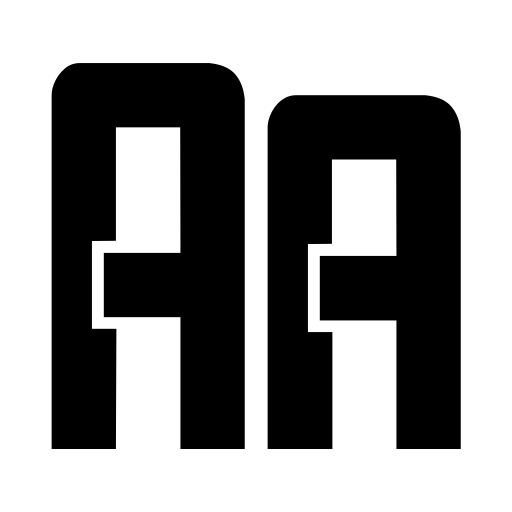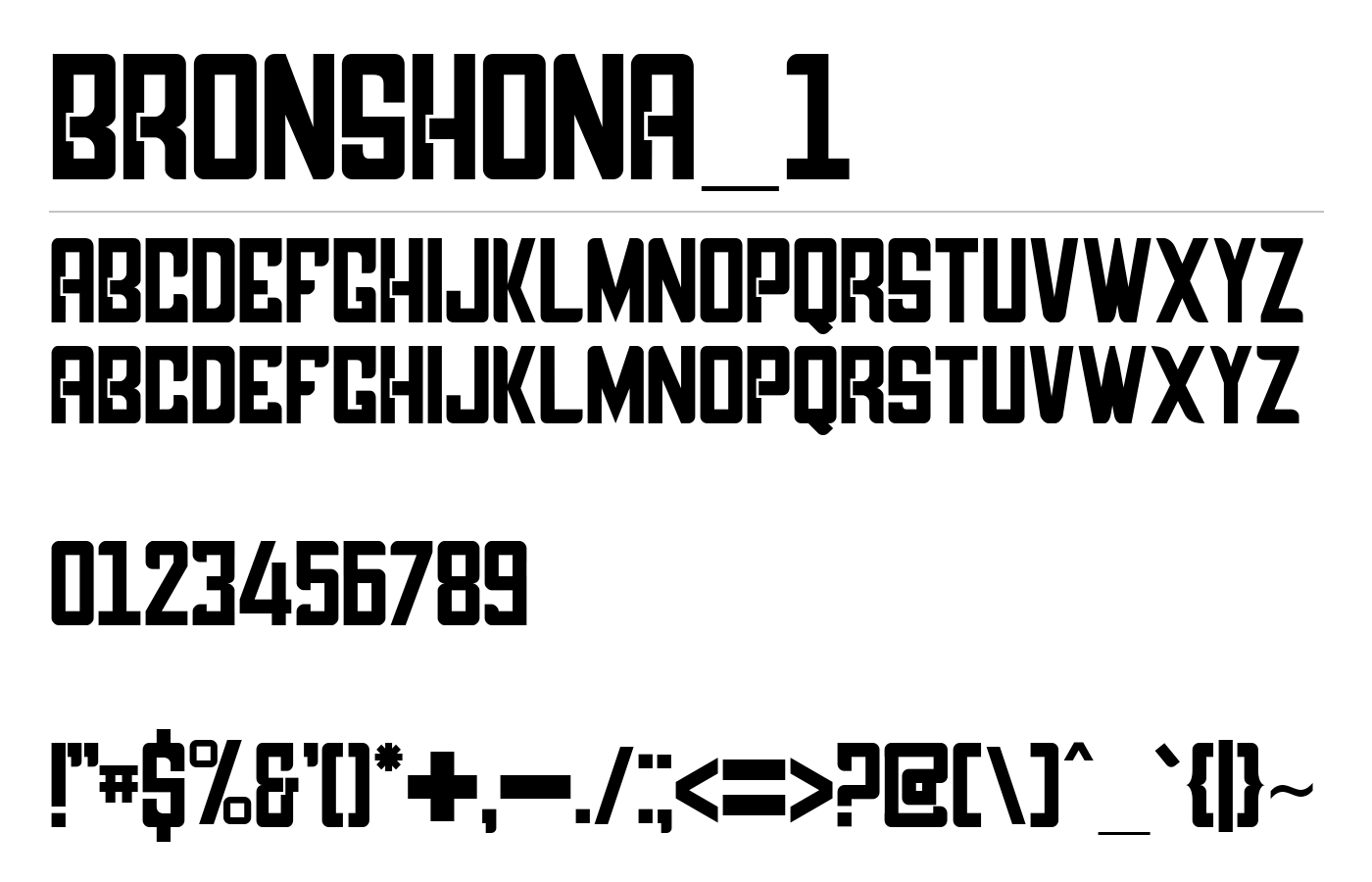
BRONSHONA_1 is a bold, condensed sans serif font with a strong geometric structure and sharp edges, giving it a modern and industrial feel. Its uppercase-only design features unique cut-out details that add character and make it stand out, ideal for eye-catching headlines, logos, and branding that aims to convey strength and innovation. This font works best in display settings where impact and readability at larger sizes are essential.
BRONSHONA_1 Font
About BRONSHONA_1 Font